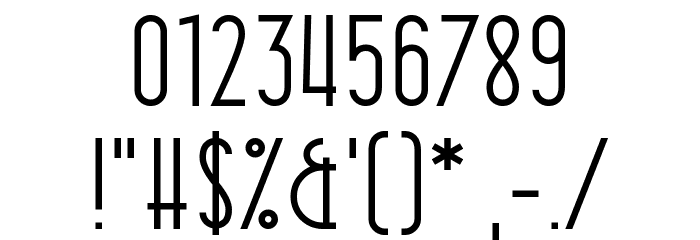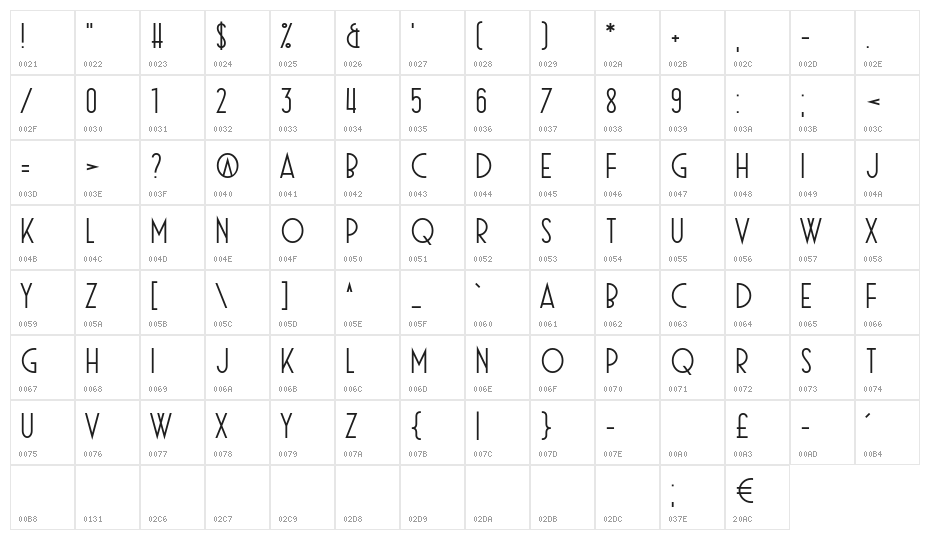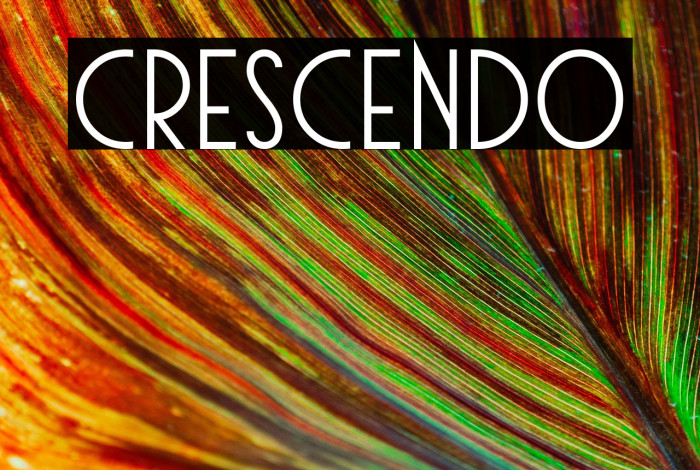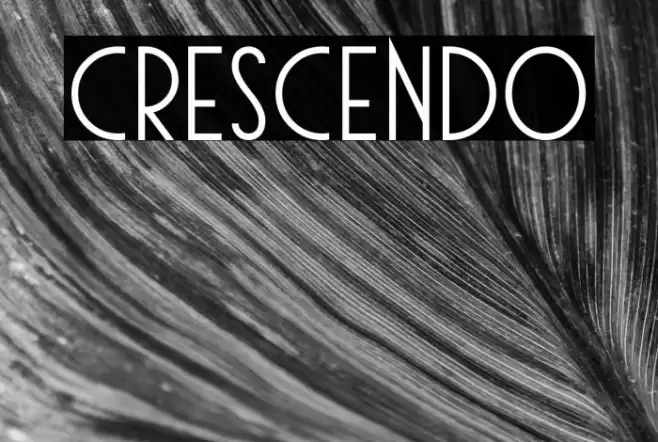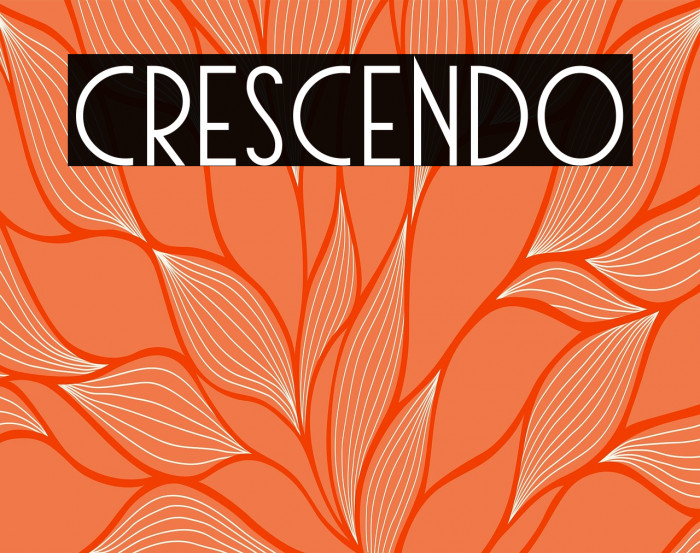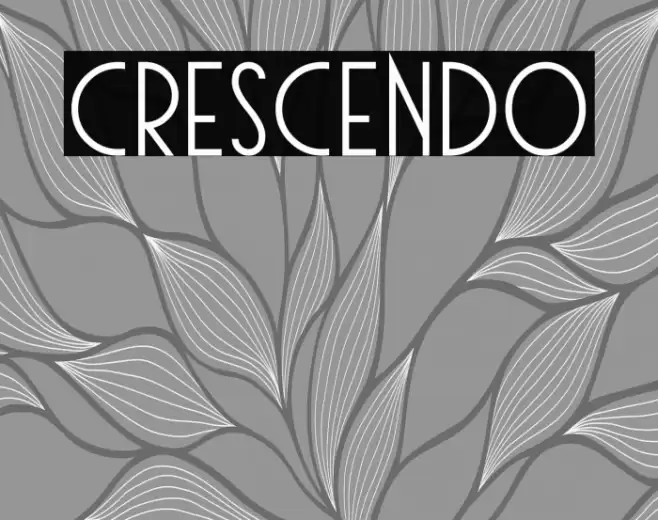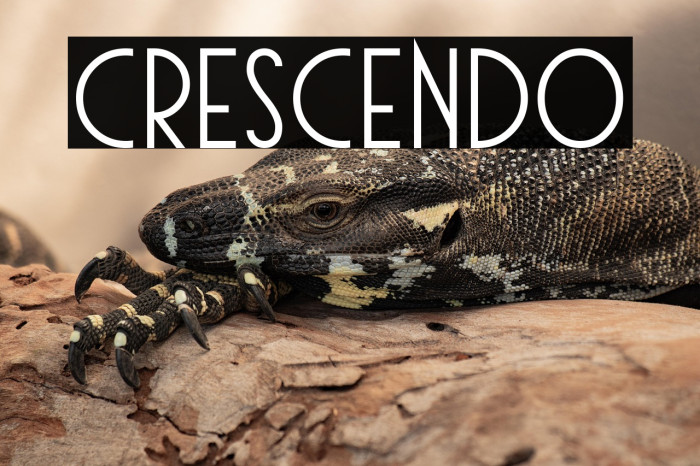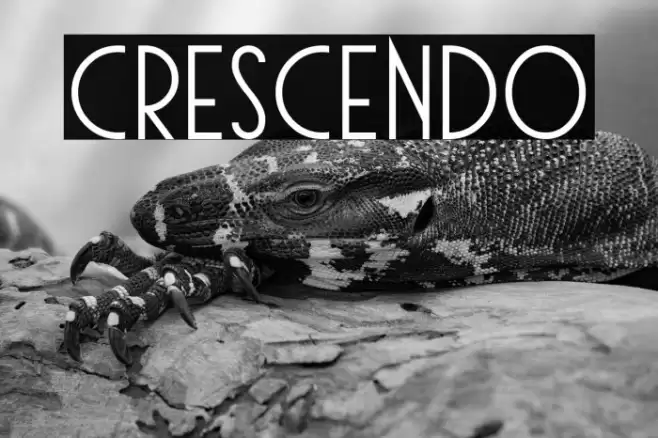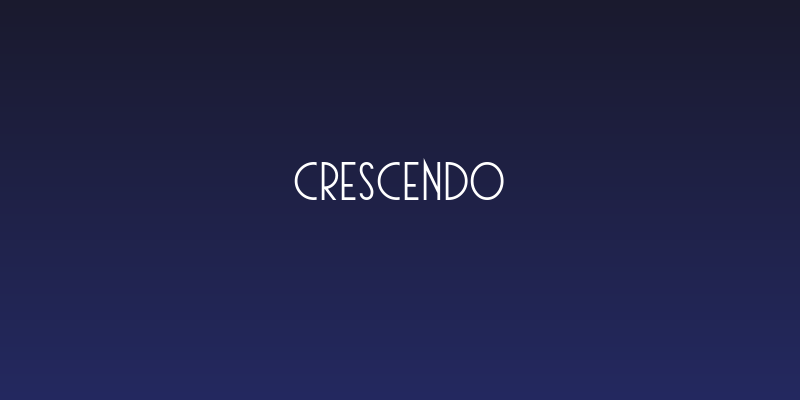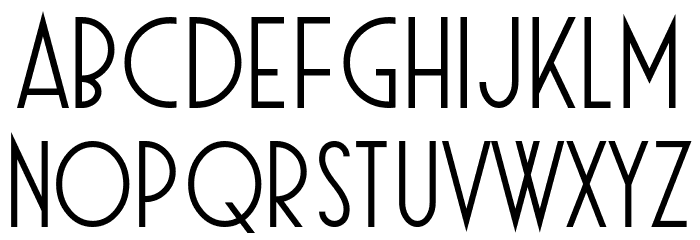
Crescendo Font
Crescendo Description
This font features a clean and elegant design with a modern touch. The characters are tall and slender, with a consistent stroke width that gives it a sleek and sophisticated appearance. The uppercase letters are particularly striking, with a geometric influence that adds a contemporary feel. The lowercase letters maintain the same aesthetic, ensuring uniformity across the typeface. The numerals are clear and easy to read, making them suitable for various applications. The special characters are well-integrated, maintaining the overall style of the font. This typeface is versatile, offering a refined look for both digital and print media.